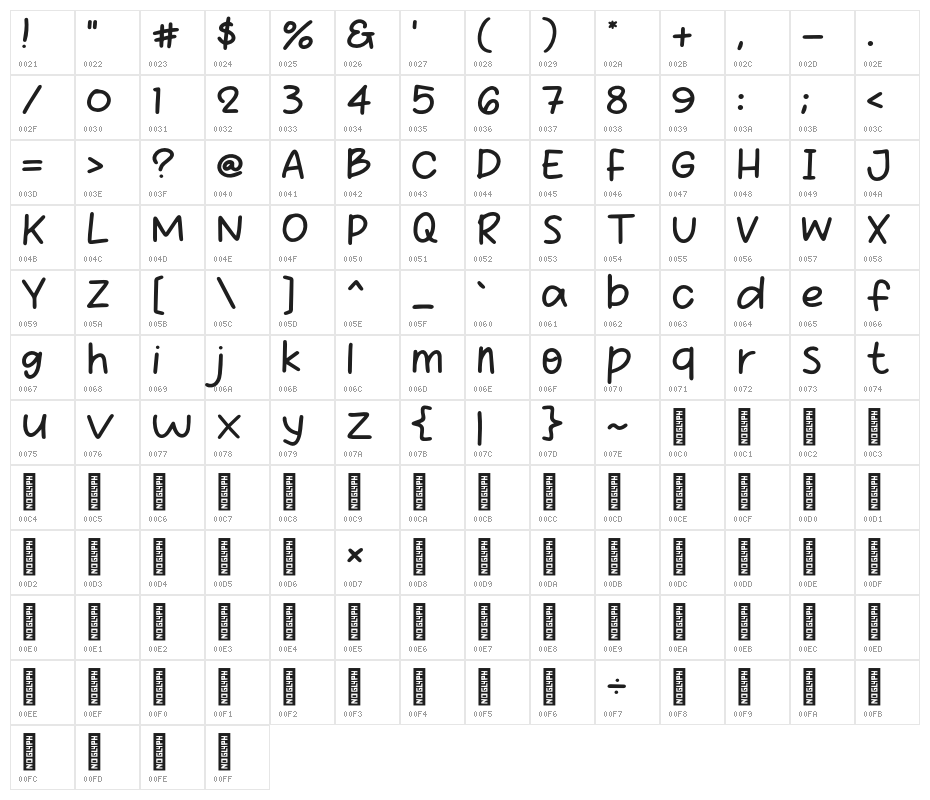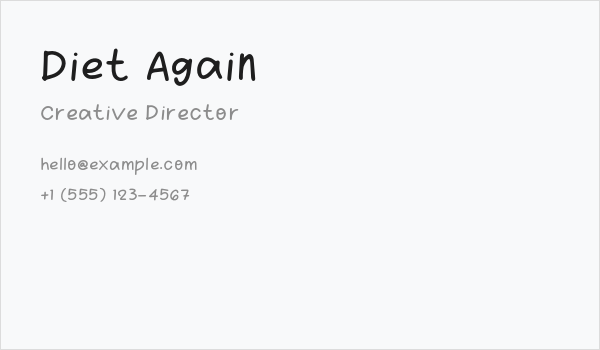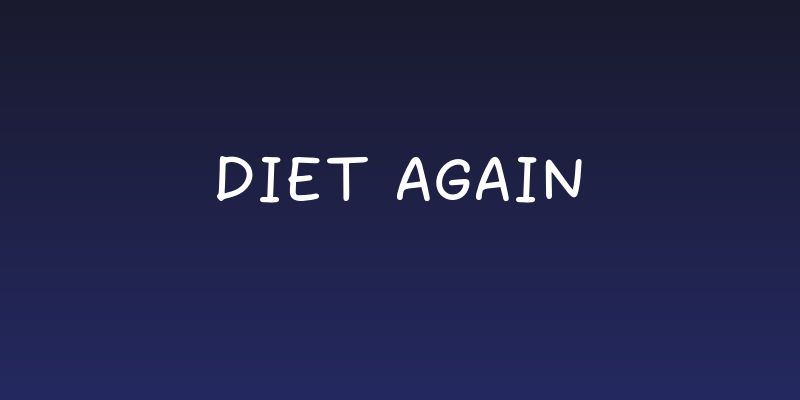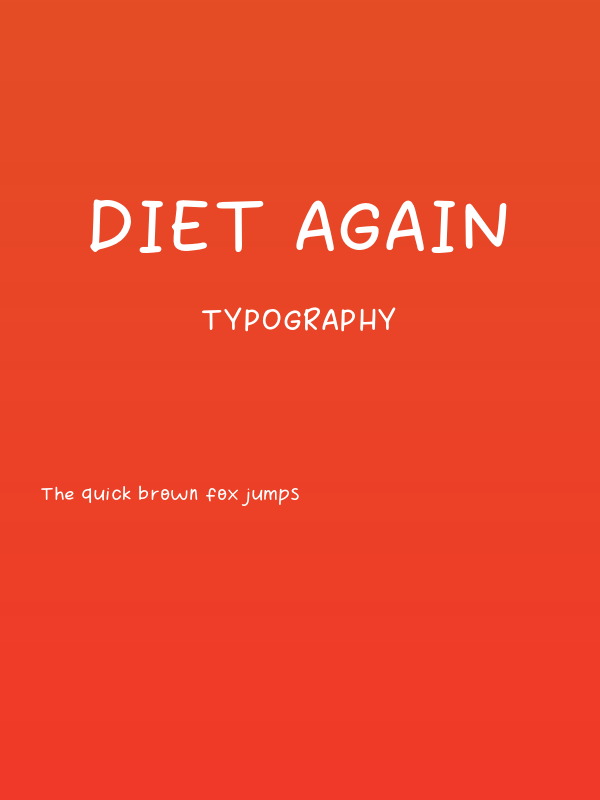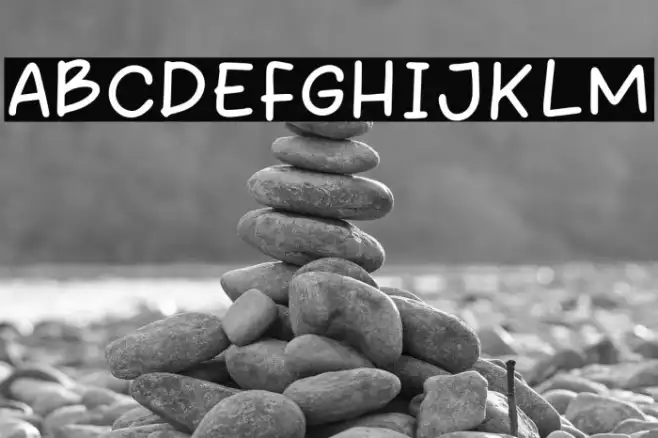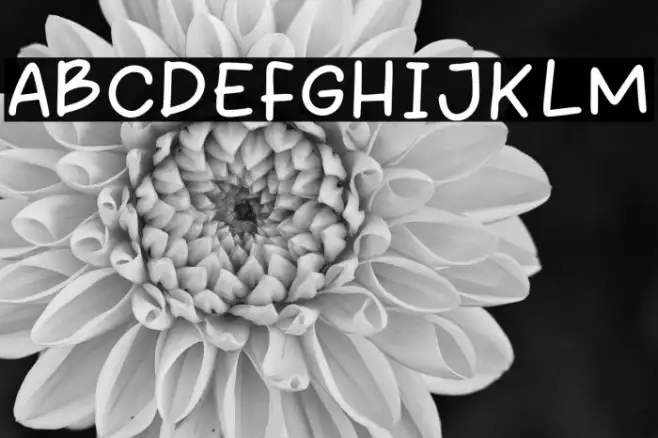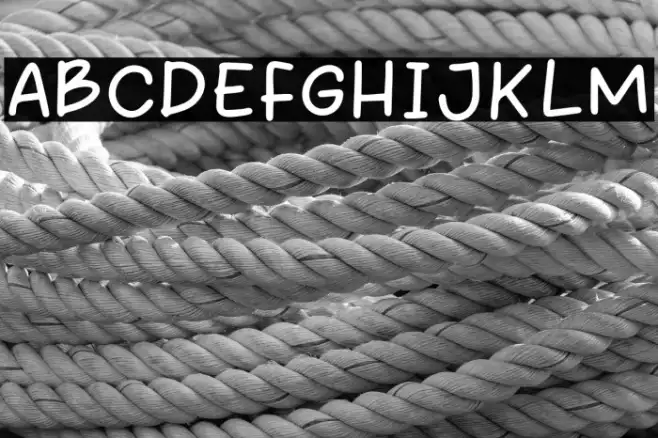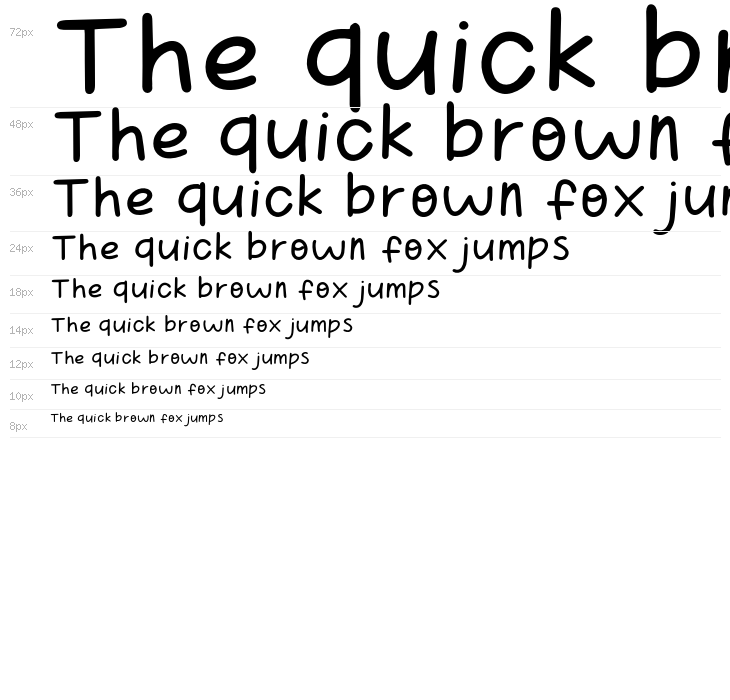
Diet Again Font
Diet Again Description
This playful and casual font features rounded, hand-drawn characters that convey a friendly and approachable feel. The letters have a consistent stroke width, giving them a uniform appearance, while the slightly irregular shapes add a touch of whimsy. The font includes both uppercase and lowercase letters, numbers, and a variety of special characters, making it versatile for different uses. Its informal style is reminiscent of handwriting, making it suitable for projects that require a personal touch. The overall design is clean and easy to read, with a moderate character spacing that ensures clarity without sacrificing its playful nature.
| Use Case | Headlines, Informal text, Branding |
| Proposed Projects | Ideal for children's books, casual invitations, greeting cards, and playful branding. |